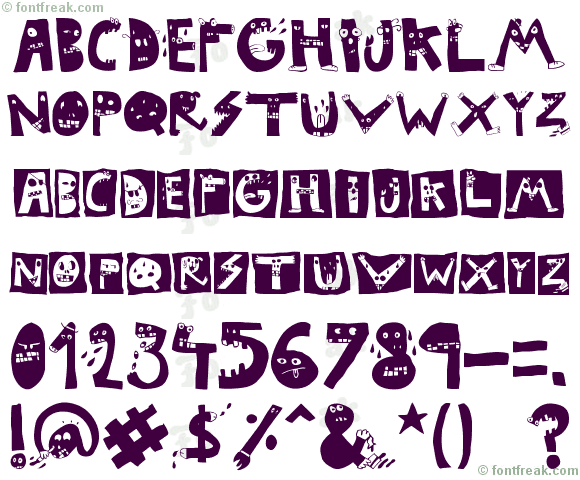
LSD junior
About LSD junior
LSD junior is a unique display typeface created by woodcutter Manero, released in 2013 under a freeware license. This font captures attention with its playful and quirky style, making it an excellent choice for projects that require a touch of whimsy. Characterized by its irregular shapes and cartoonish elements, LSD junior features a bold stroke weight that gives it a strong presence while maintaining a sense of lightheartedness. The contrast in design elements creates visual interest, and the spacing between characters is designed to enhance readability while allowing each letter to stand out.
This font is particularly well-suited for a variety of creative applications. It shines in children's book covers, where its playful aesthetic can captivate young audiences. Additionally, it is ideal for designing eye-catching movie posters that aim to evoke curiosity. Restaurant menus can benefit from LSD junior's distinctive look, especially those targeting a younger demographic or playful dining experiences. Event flyers and promotional materials for festivals or community events can also leverage the font's vibrant personality to attract attention.
Targeted towards graphic designers, small business owners, and content creators, LSD junior provides a versatile option for anyone looking to infuse a sense of fun into their projects. Its adaptability across various mediums makes it a valuable addition to any designer's toolkit.
What sets the LSD junior font apart is its ability to blend humor with artistry, making it not just a typeface but a statement. The font's unique character ensures it will leave a lasting impression, making it perfect for brands looking to convey a sense of creativity and approachability. For those interested, the LSD junior font free download allows easy access to this distinctive typeface, opening the door to endless design possibilities.